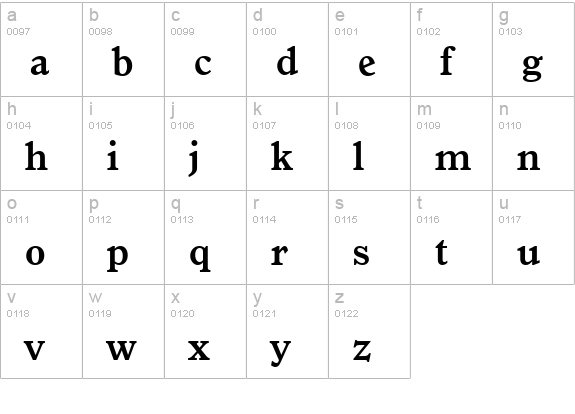
GranadaSerial-Bold is a strong, high-contrast variant in the GranadaSerial typeface family \xE2\x80\x94 well suited to headlines, attention-grabbing titles, and strong calls-to-action.
GranadaSerial-Bold is a stunning and bold font that exudes elegance and sophistication. Its strong and powerful presence makes it perfect for headlines, titles, and branding materials. The thick strokes and sharp edges of this font command attention and convey a sense of authority and confidence. What sets GranadaSerial-Bold apart is not only its striking design, but also the fact that it is available for free download at FontsMarket.com. This means that anyone can easily access this high-quality font and use it to elevate their design projects without any cost. Whether you are working on a poster, logo, website, or any other creative endeavor, GranadaSerial-Bold is sure to make a bold statement and leave a lasting impression. Download this exquisite font today and unleash your creativity with ease and style.